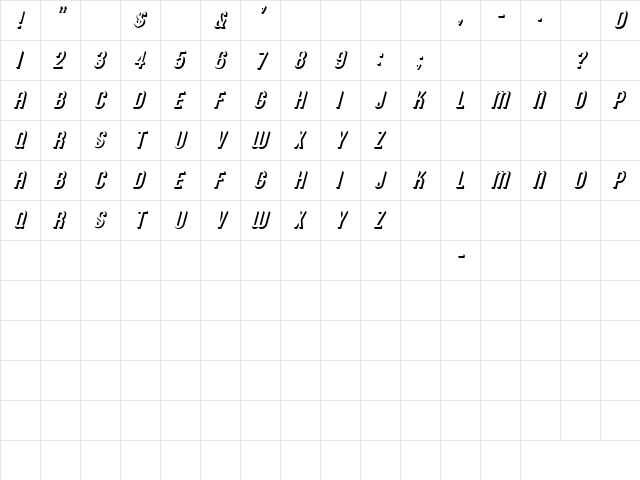
Shadow 3 Italic
Design Context for Shadow 3 Typeface
Shadow 3 is built around its visual character rather than neutral utility — its distinctive forms are designed to make an impression at display sizes. The dynamic lean of this cut emphasises speed and emphasis in any layout.
Font Pairing: Pair with a clean neutral sans-serif for body copy to let Shadow 3's character lead without overwhelming the composition.
Pro Tip: Use Shadow 3 exclusively at display sizes — it was designed to be seen, not read at length. Let a neutral companion handle body copy.